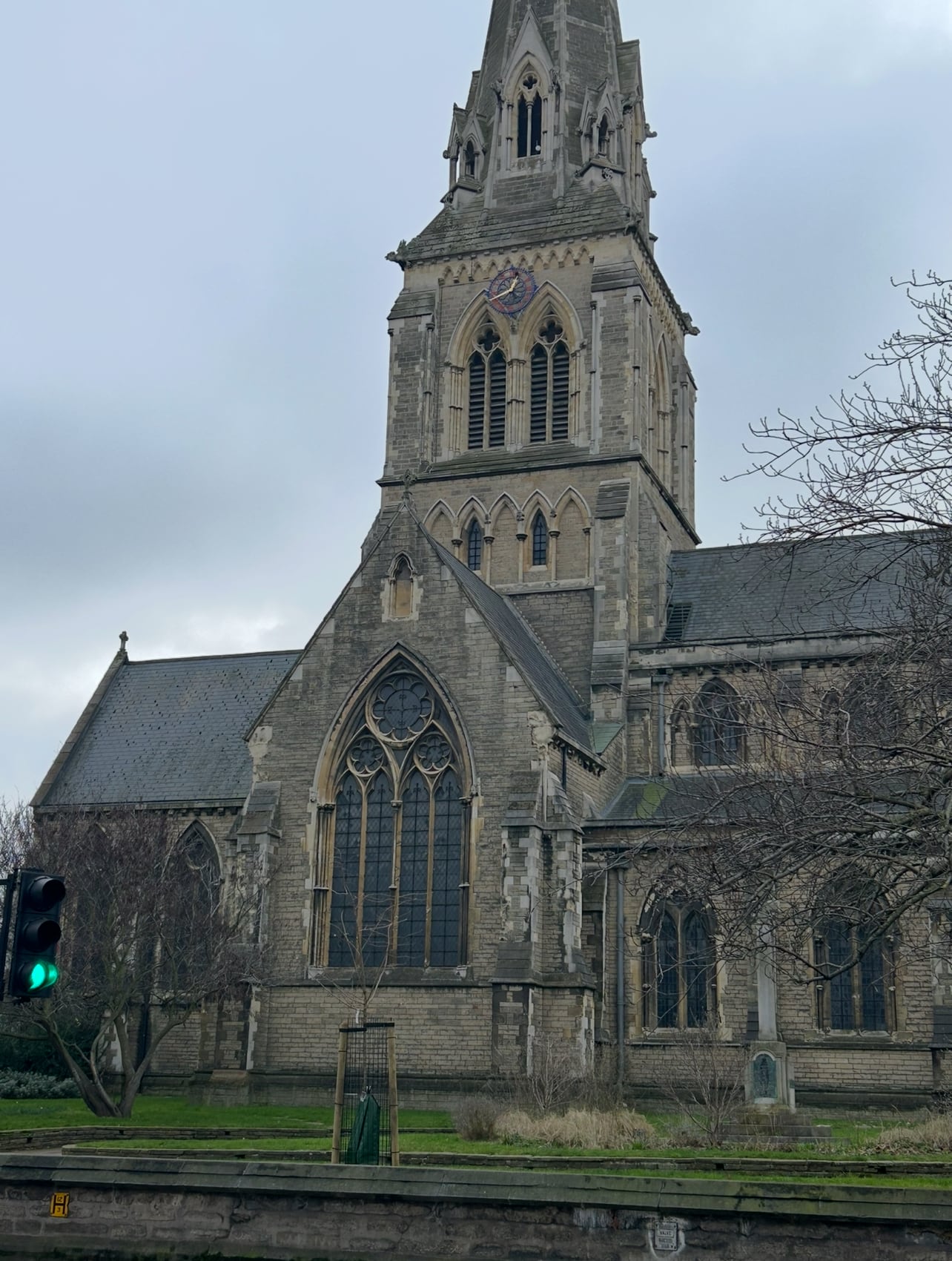
Use the structure of stained glass windows to piece together the shape of flowers to form letters. It exudes an air of elegance, antiquity and a touch of mystery.
Flower Church
Use the structure of stained glass windows to piece together the shape of flowers to form letters. It exudes an air of elegance, antiquity and a touch of mystery.